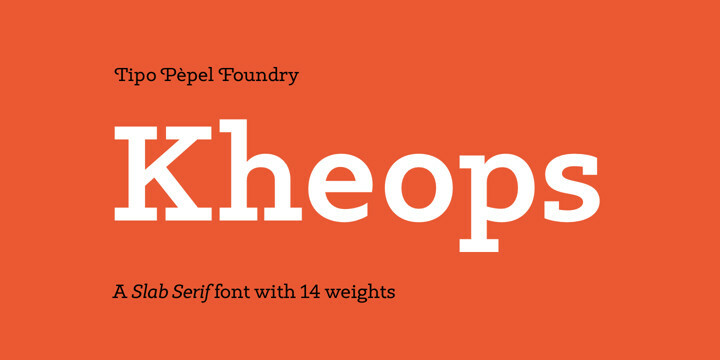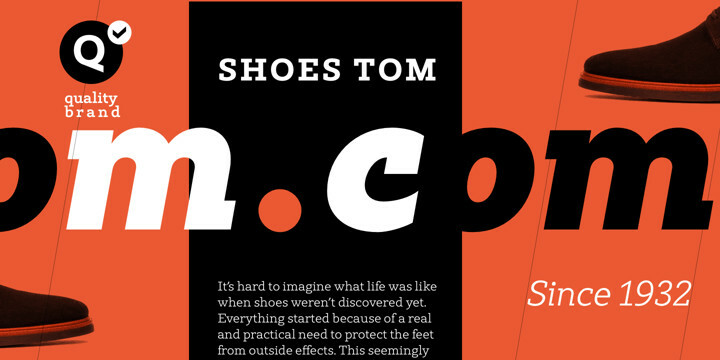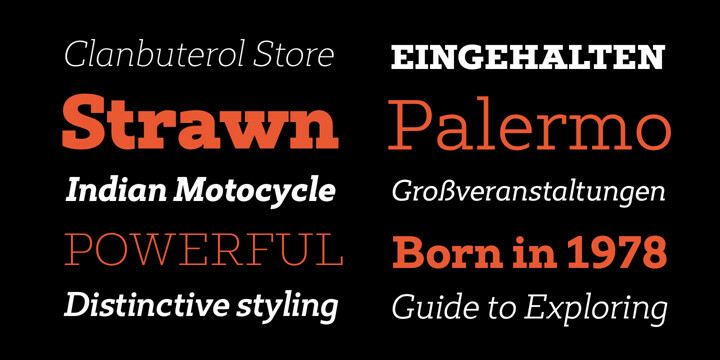
Kheops Font Family
Kheops Font FamilyKheops is a slab-serif style typeface, with a contemporary scent and designed for long texts, without giving up on big headlines, it is accompanied by an authentic cursive with a dynamic rhythm and a skeleton with humanist reminiscences, it also includes a set of ornaments based on in simple geometric shapes, and an extensive range of OpenType functionalities to meet the needs of the most demanding designer, an all-rounder that cannot be missing from your typographic palette.